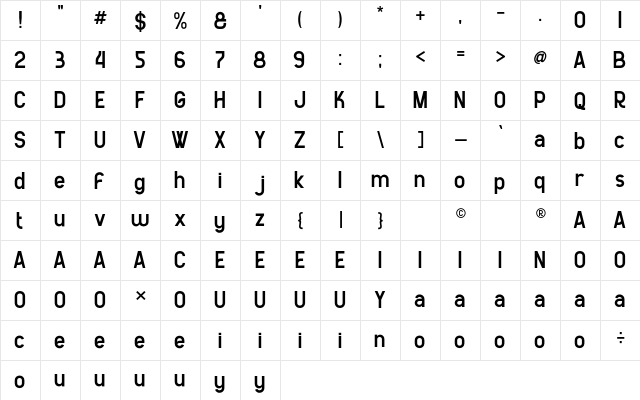
GRATY SANS Regular
| Designer | Unflea |
Design Context for GRATY SANS Typeface
GRATY SANS offers clean, dependable letterforms without strong stylistic allegiance, making it a practical choice for designers who need flexibility.